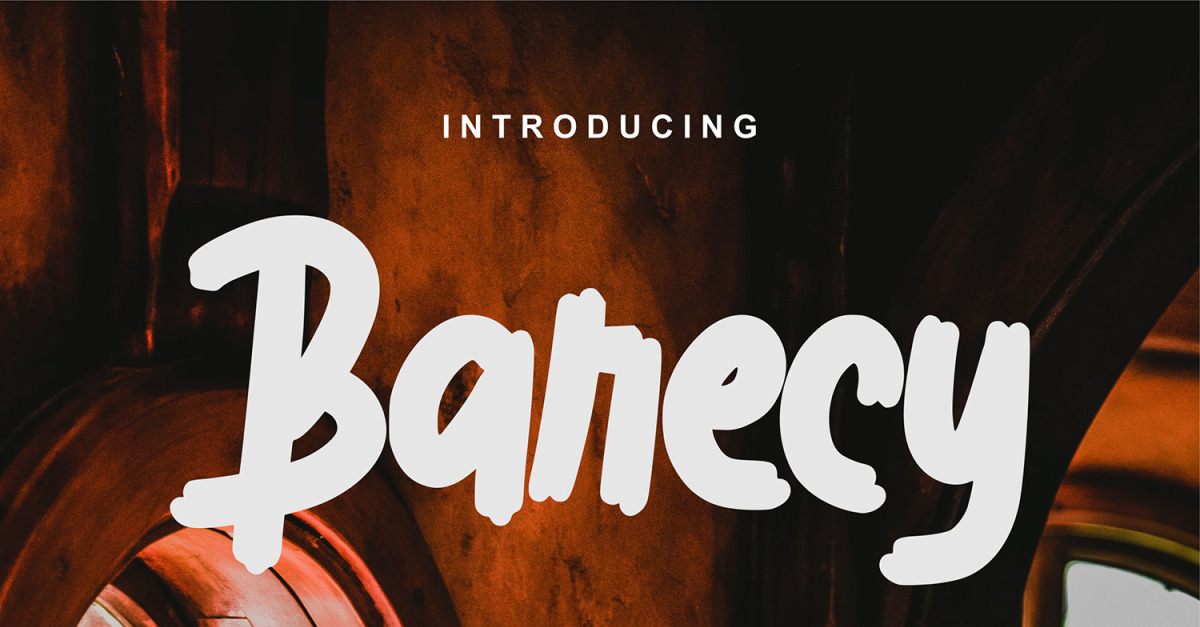
Barecy | Bold Typeface Font
**Barecy | Bold Typeface Font** with a calligraphy style, So beautiful on invitation like greeting cards, branding materials, business cards, quotes, posters, and more!